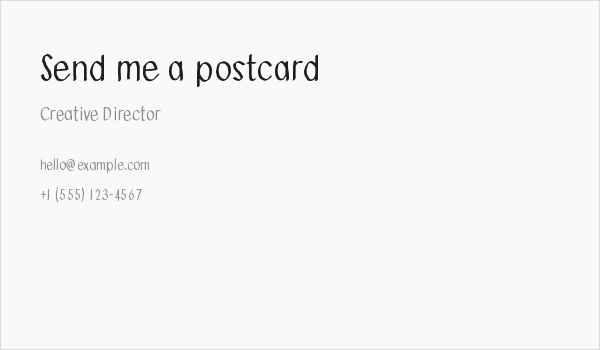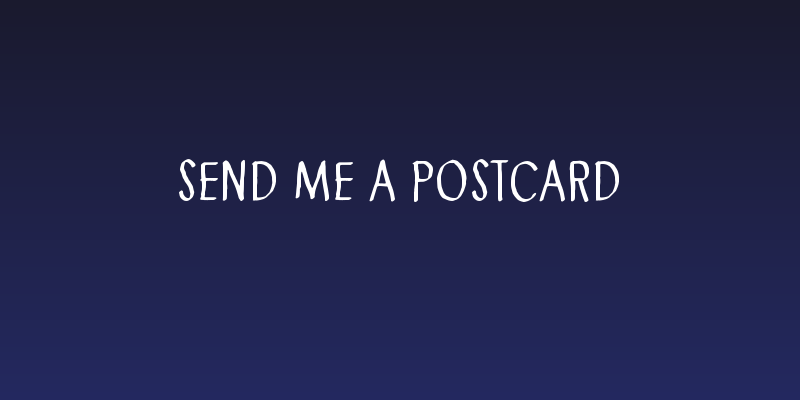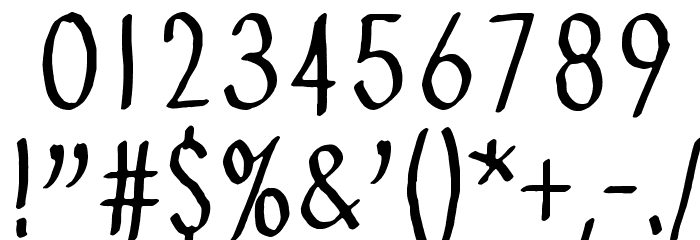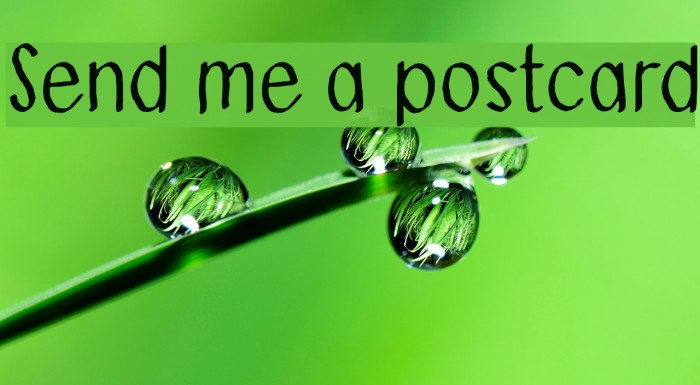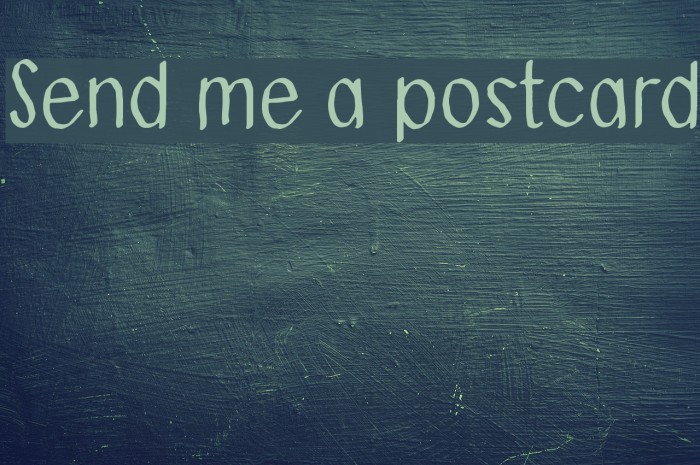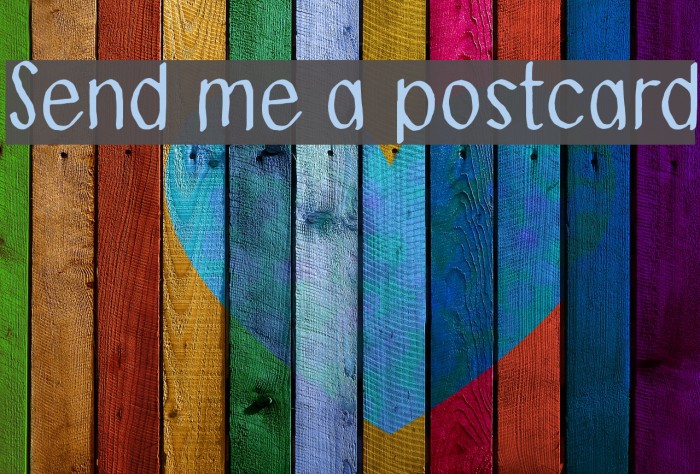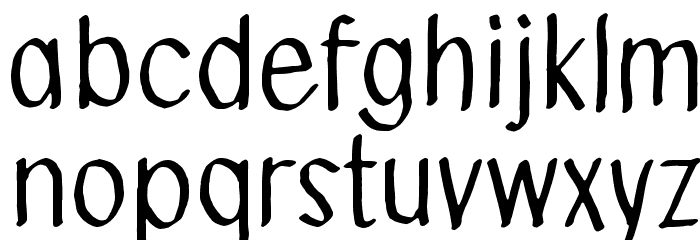
Send me a postcard Font
Send me a postcard Description
This font features a playful and casual handwritten style, characterized by its irregular strokes and slightly uneven baseline. The letters have a whimsical quality, with varying stroke widths that give it a dynamic and lively appearance. The uppercase and lowercase letters maintain a consistent style, with rounded edges and a slightly tilted orientation, adding to its informal charm. The numerals and special characters are designed to match the overall aesthetic, making it suitable for creative and informal projects. The font's unique personality makes it ideal for designs that require a personal touch.
| Proposed Projects | Greeting cards, invitations, children's books, casual branding, and social media graphics. |